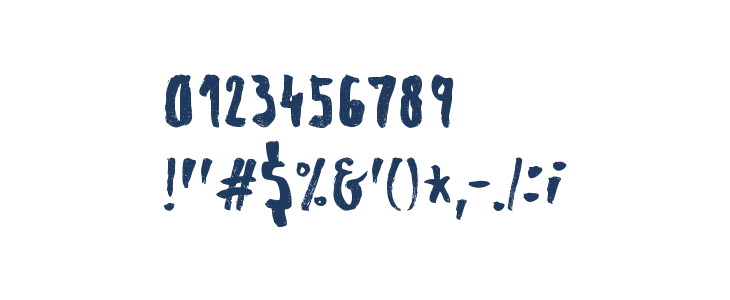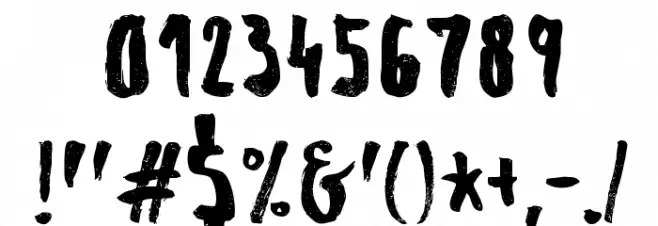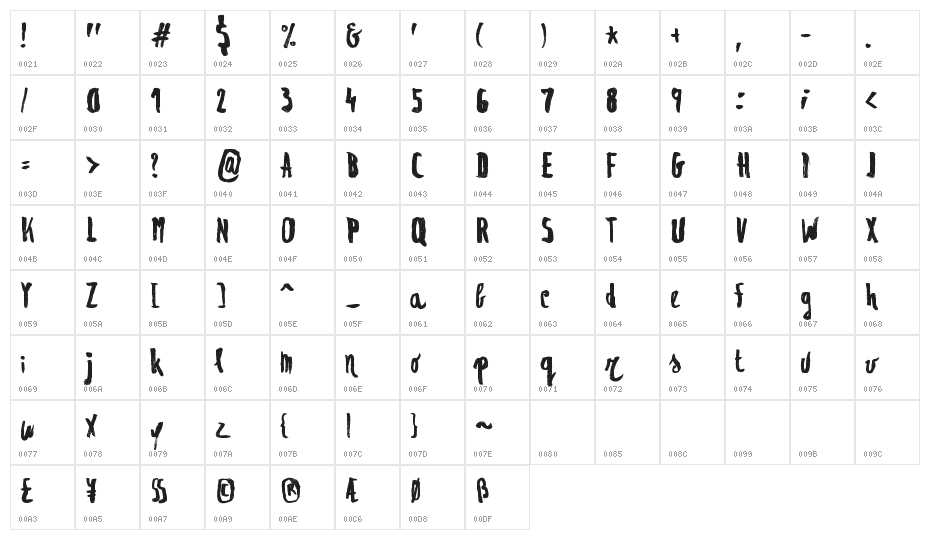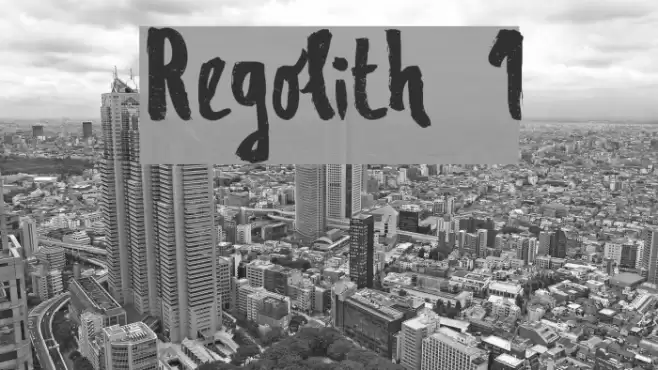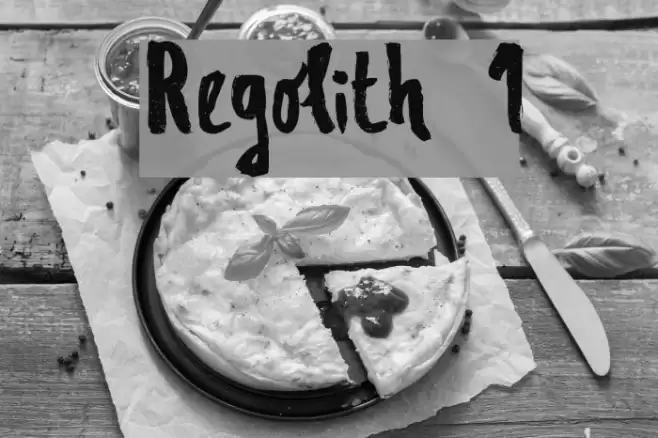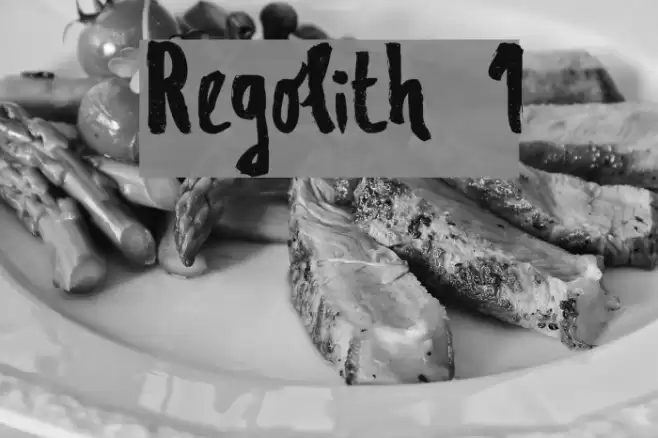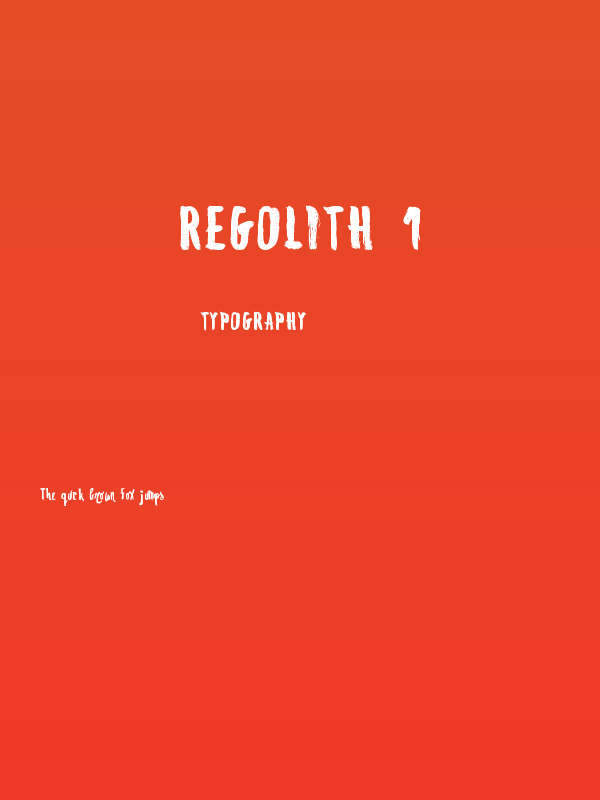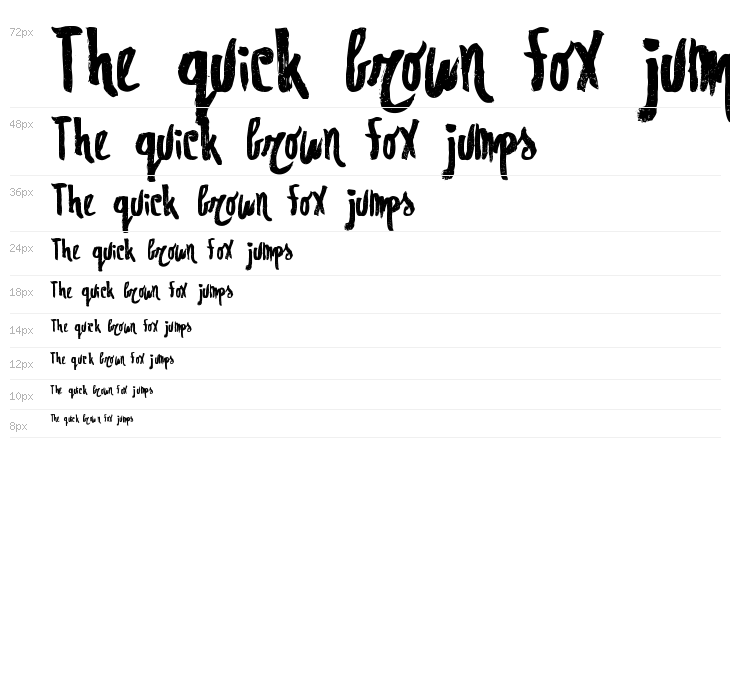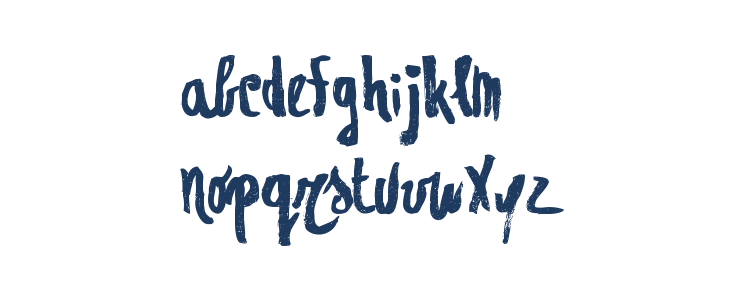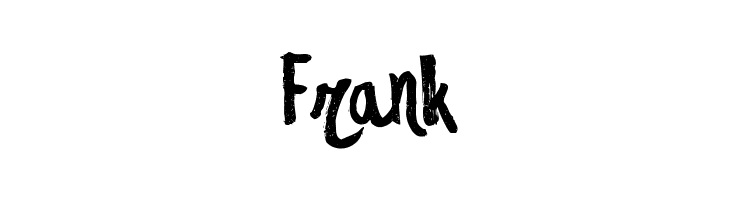
Regolith 1 Font
Regolith 1 Description
This font exhibits a bold and textured style, reminiscent of hand-painted signage with a rugged, organic feel. The letters are unevenly shaped, giving a dynamic and energetic appearance. The uppercase and lowercase characters maintain a consistent rough texture, adding to the font's handcrafted aesthetic. Numbers and special characters follow the same design, ensuring a cohesive look across all glyphs. This font's unique style makes it stand out, perfect for projects that require a bold and artistic touch.
Proposed ProjectsIdeal for posters, album covers, branding, and any project needing a bold, artistic statement.